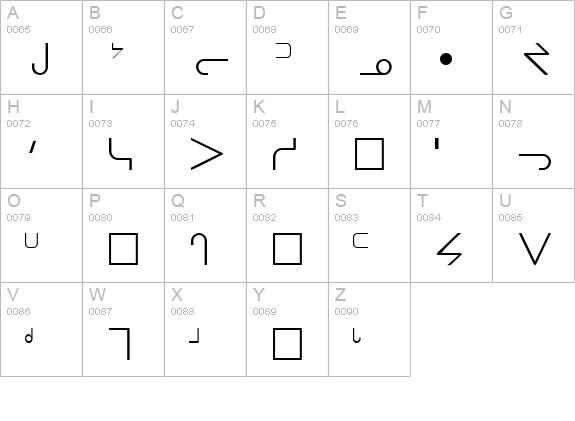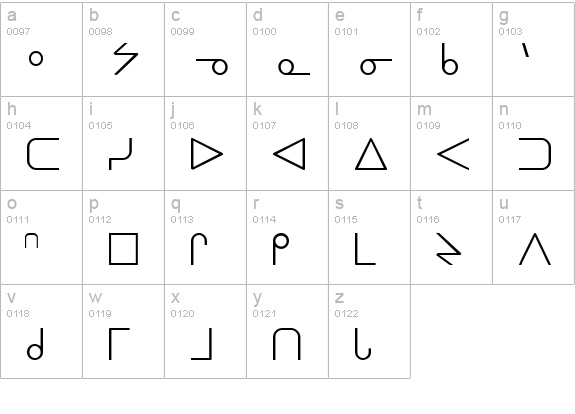
CreeNormal Font Details
CreeNormal font is a versatile and modern typeface that exudes elegance and sophistication. With its clean lines and sleek design, CreeNormal is perfect for a wide range of design projects, from branding to editorial layouts. This font offers a perfect balance of readability and style, making it a popular choice among designers and creatives alike. The best part? CreeNormal font is available for free download at FontsMarket.com. Now you can elevate your designs with this stunning font without breaking the bank. Don't miss out on the opportunity to add CreeNormal to your font collection today and take your projects to the next level.